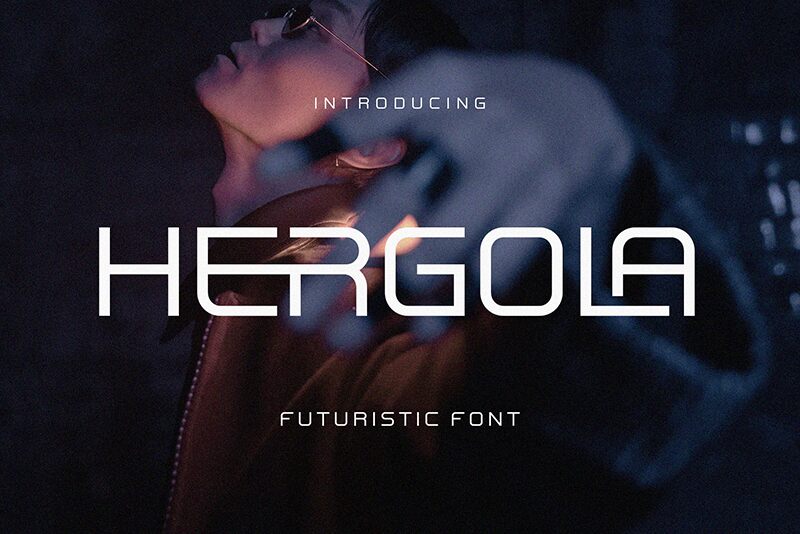
Hergola Regular
Hergola, designed by BrandSemut, is a sans serif font that offers a unique blend of minimalist elegance and contemporary boldness. With its semi-light weight and expanded width, Hergola stands out with a spacious yet precise character structure that radiates a sense of clarity and modernity. The expansive letterforms are crafted to capture attention while ensuring outstanding readability.
The aesthetic appeal of Hergola lies in its harmonious balance between professional subtlety and creative flair. Its clean lines and open architecture make it an exceptional choice for branding, editorial design, and user interfaces where legibility is paramount without compromising on style.
The versatility of Hergola extends to an array of creative projects. Whether you're looking to impart a sophisticated touch to your corporate materials or aiming for an understated chic in digital platforms, this font adapts seamlessly across mediums. Embrace the distinctiveness of Hergola for your next design endeavour to infuse your work with its timeless grace and expansive presence.